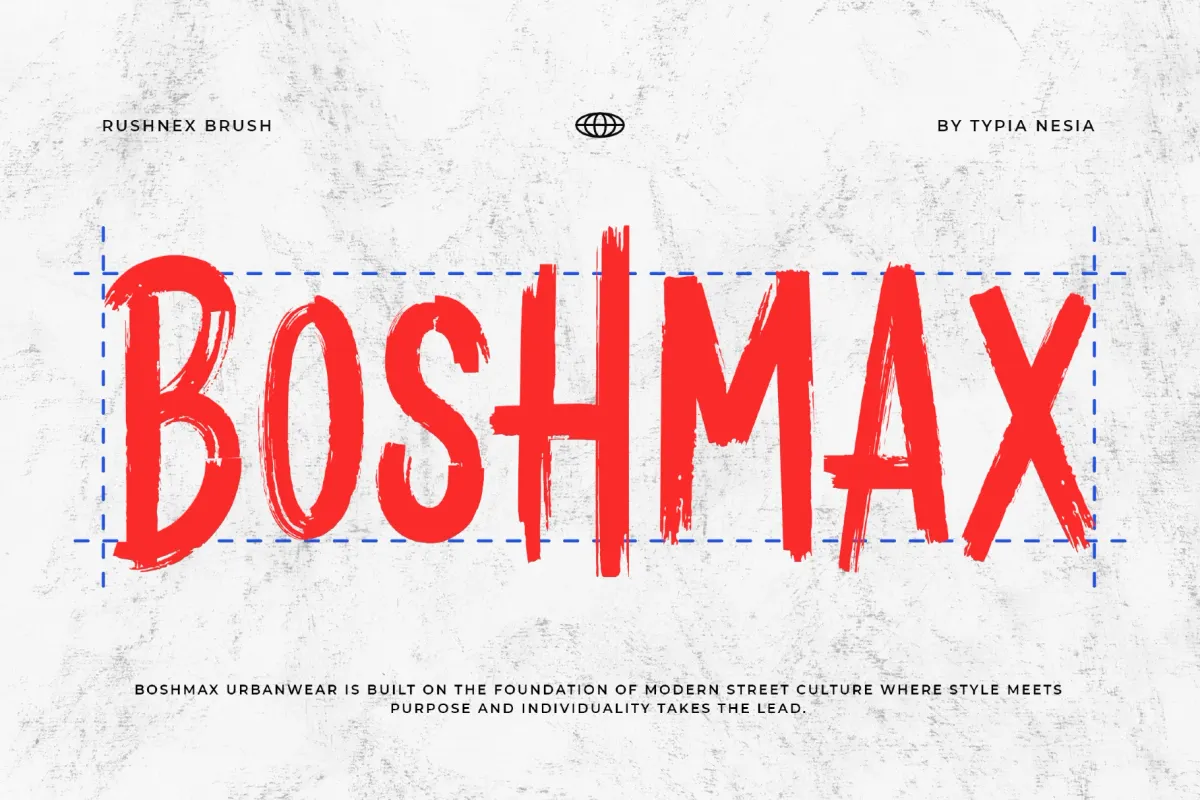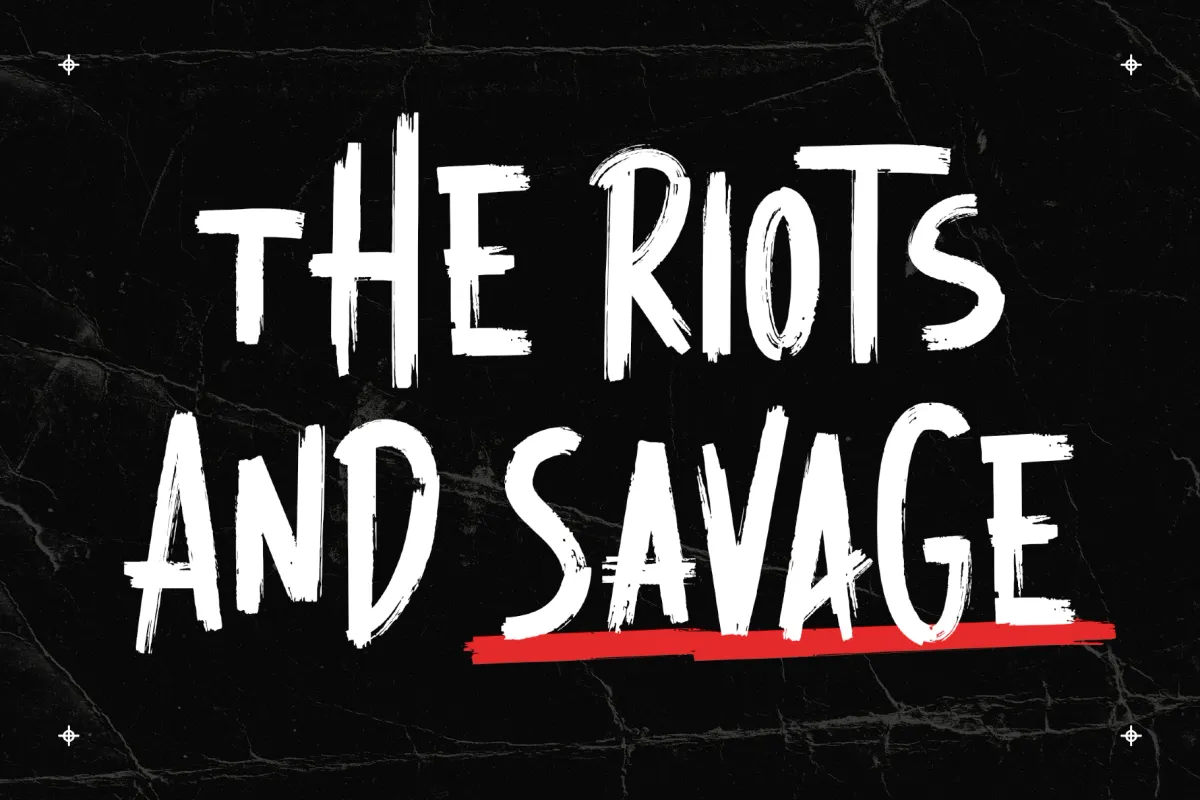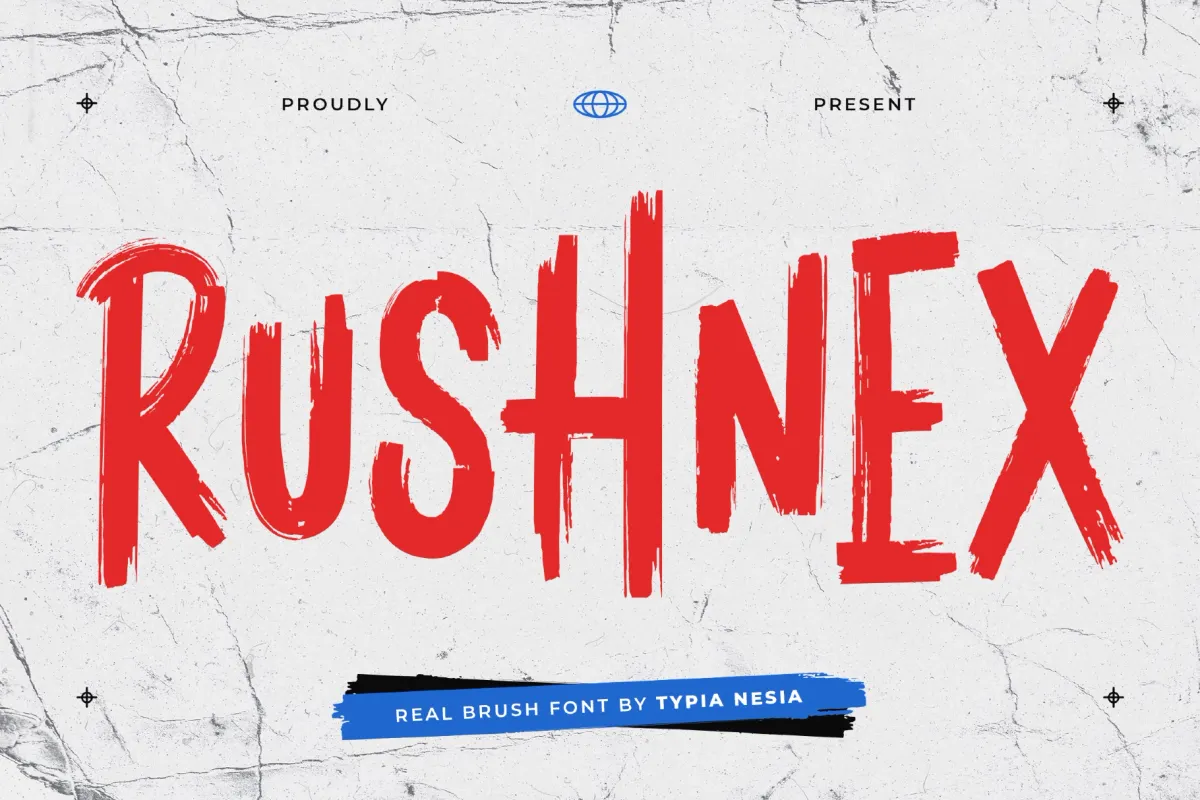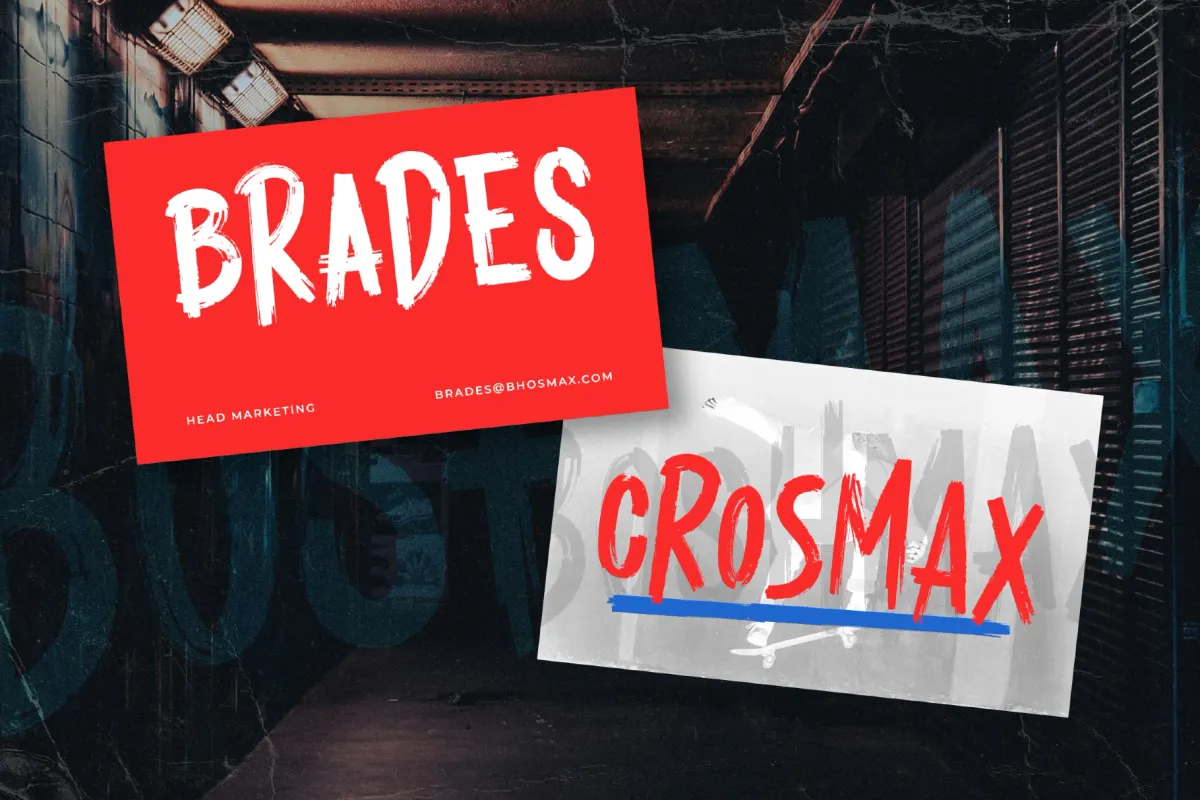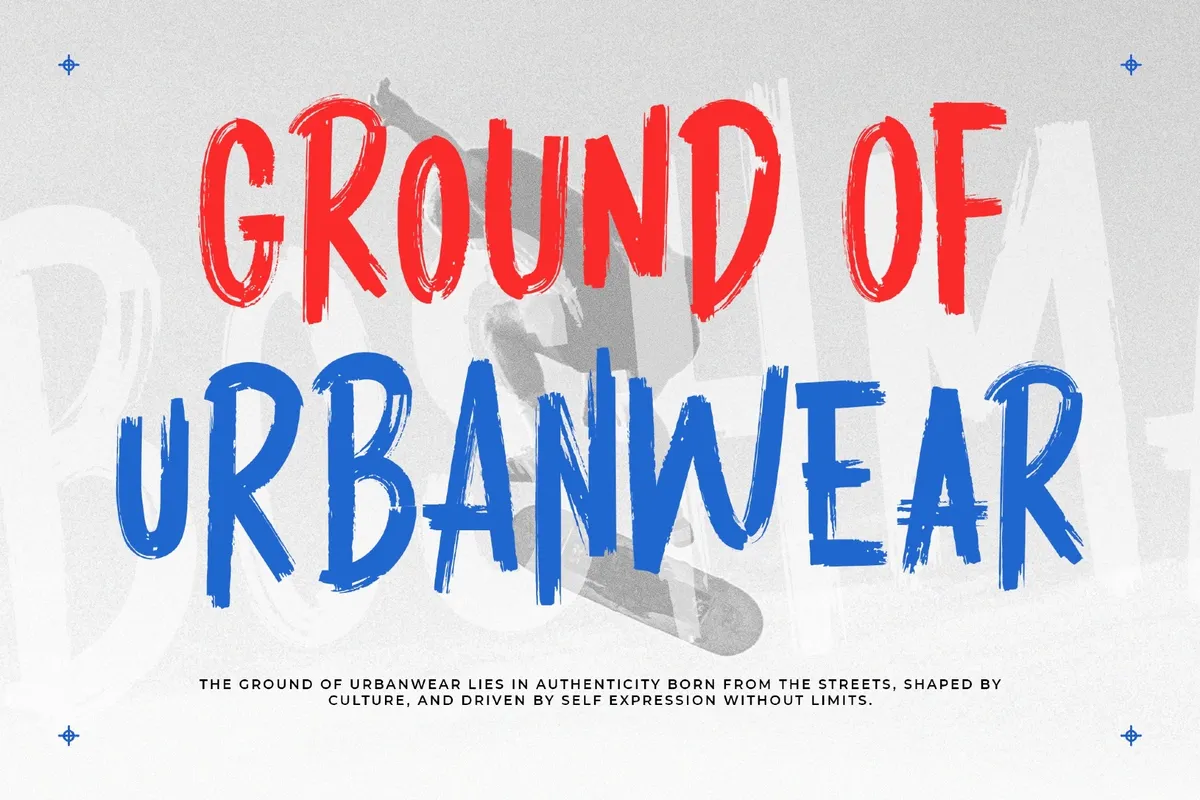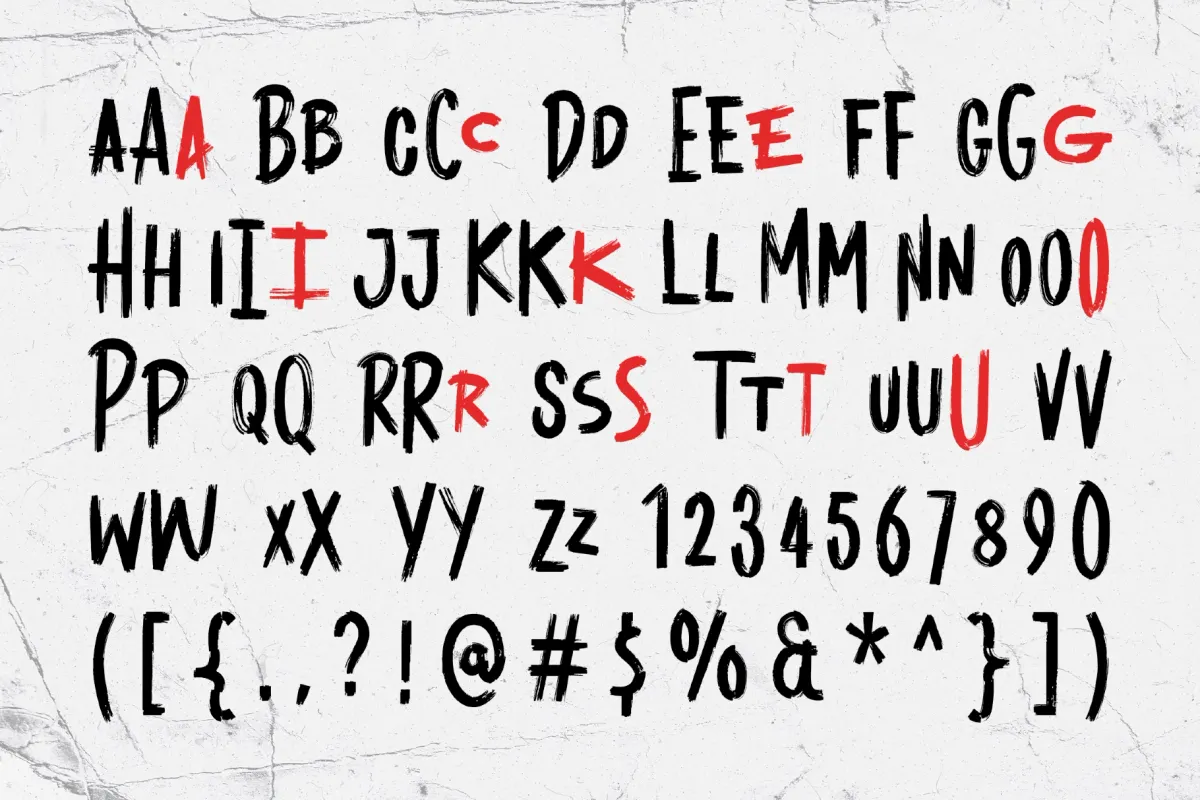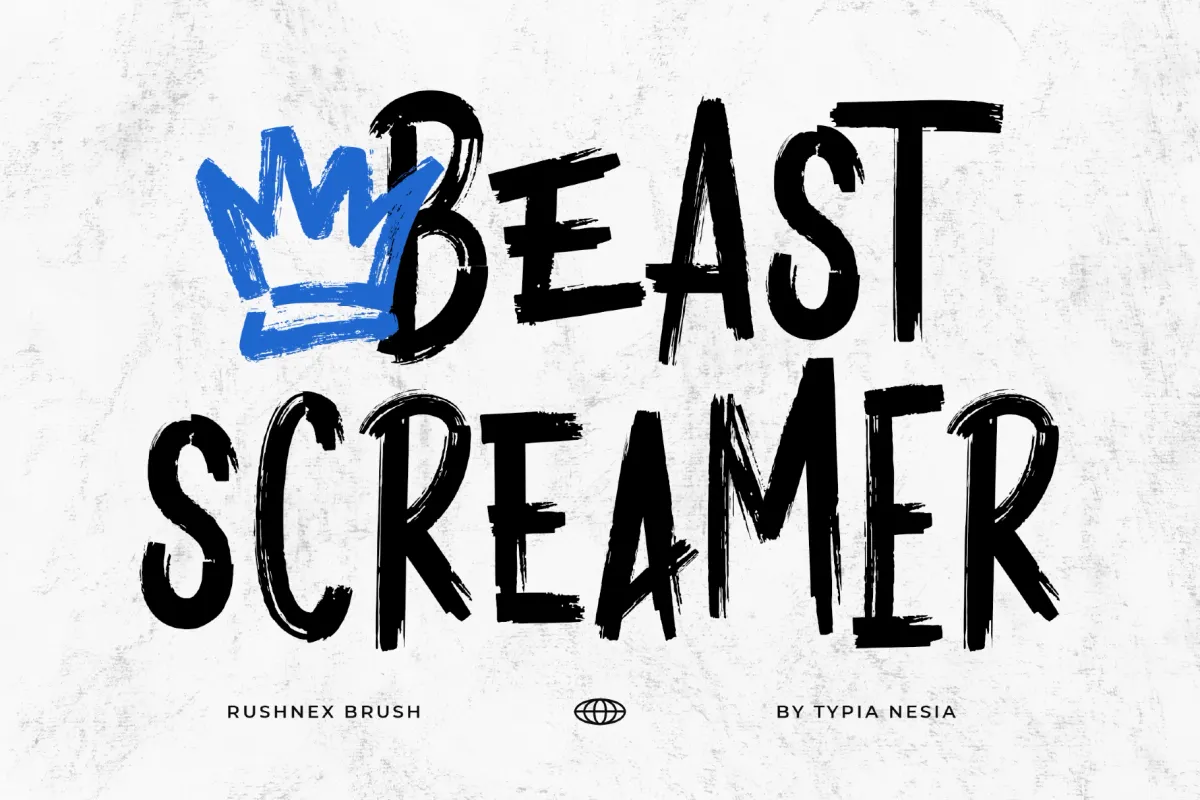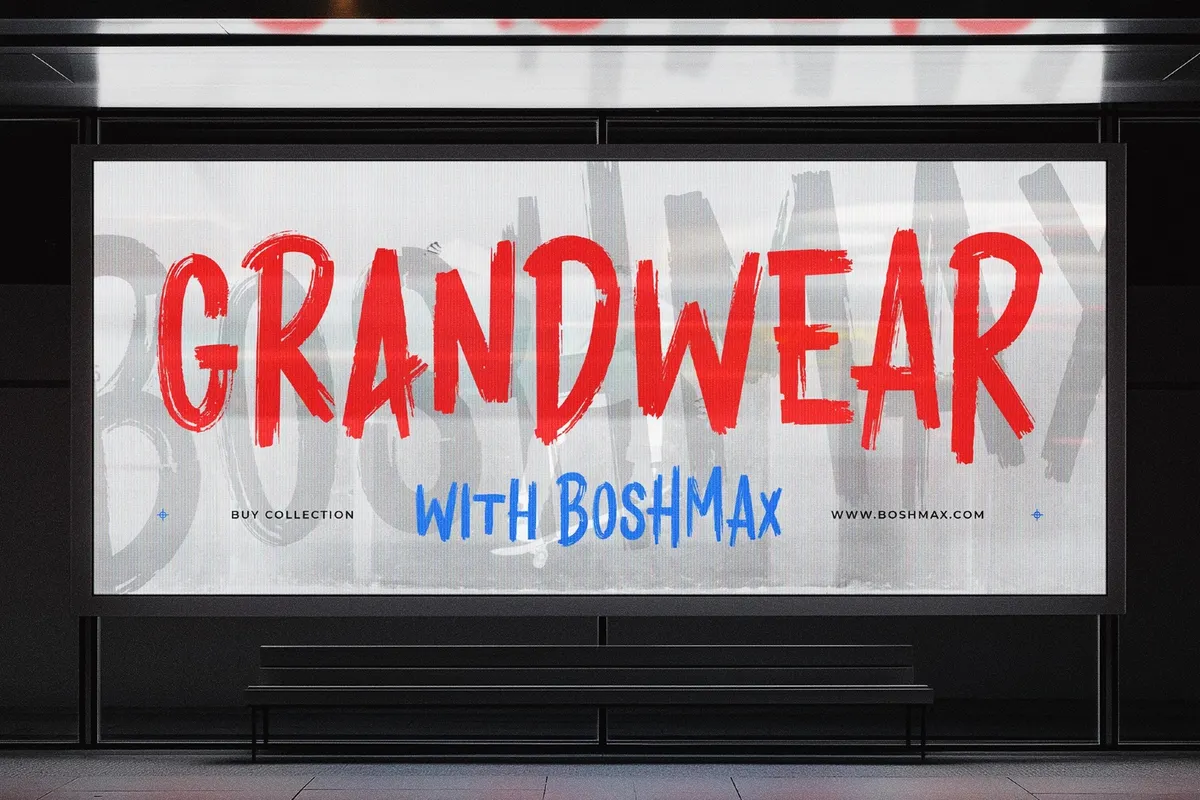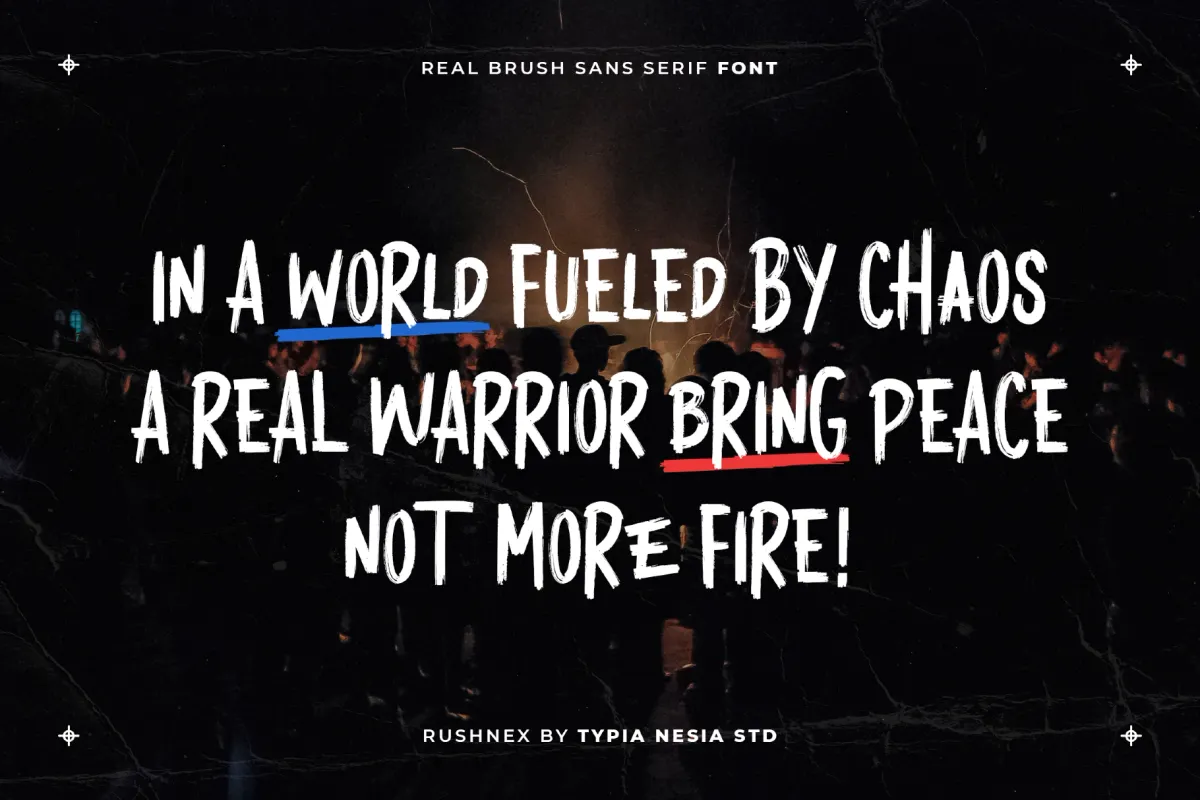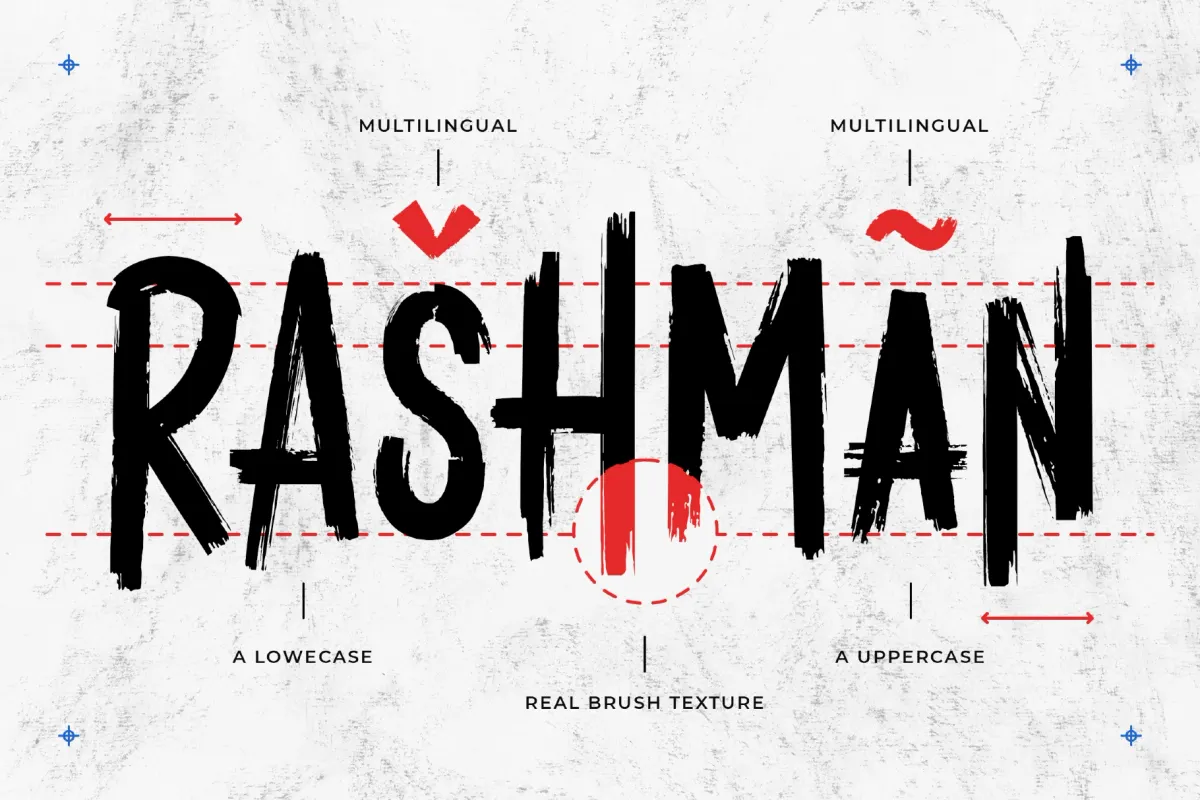
Rushnex - Bold Brush Display Font
Rushnex packs authentic brush strokes into a bold brush display font, with torn edges and uneven pressure marks that keep every letter looking hand-painted rather than vector-smooth. Several capitals carry built-in stylistic alternates, so headlines can shift between a cleaner brush pass and a rougher, more distressed pass without swapping fonts. The tall, slightly condensed caps hold their attitude at both poster scale and small merch prints.
Rushnex holds up best in short, high-contrast headlines and wordmarks where a raw edge reads as intentional rather than accidental. Use it for streetwear branding, sports team logos, music posters, apparel graphics, event promotions, social media headlines, merch drops, and packaging type.
• uppercase & lowercase;
• numerals, punctuation & symbols;
• stylistic alternates for select capitals;
• multilingual support